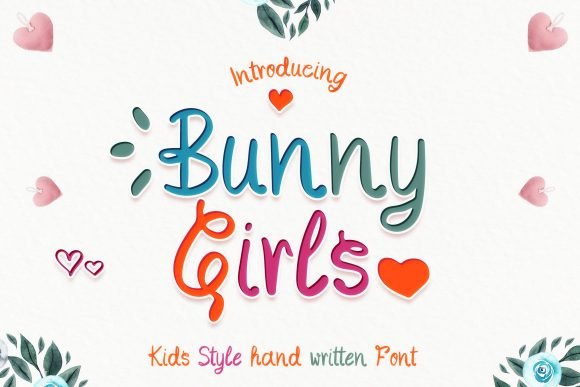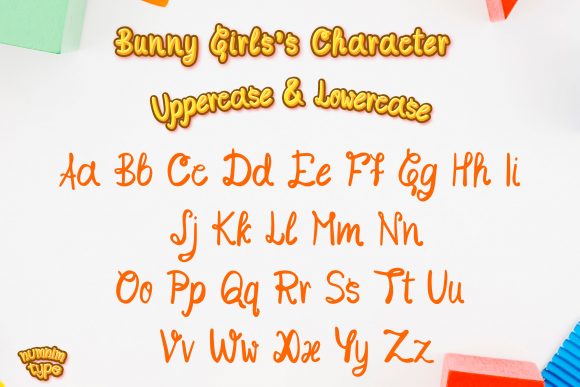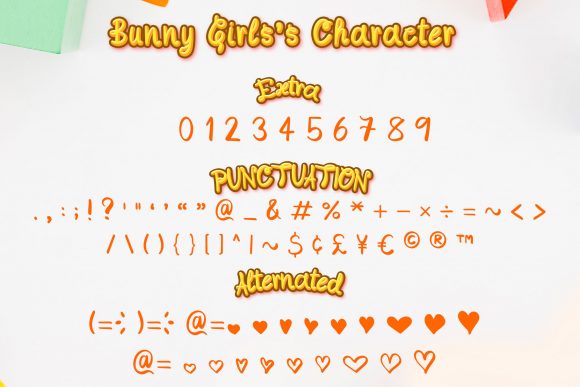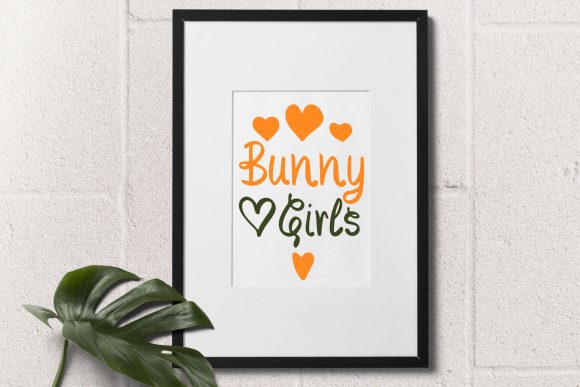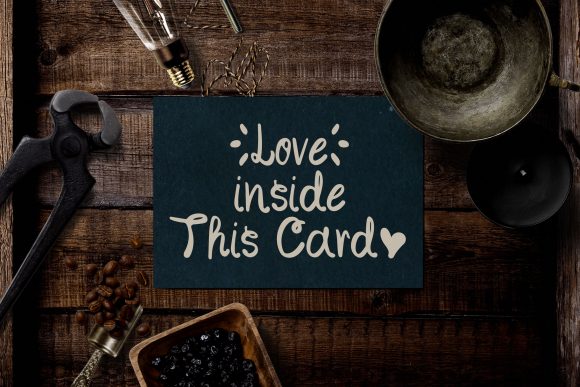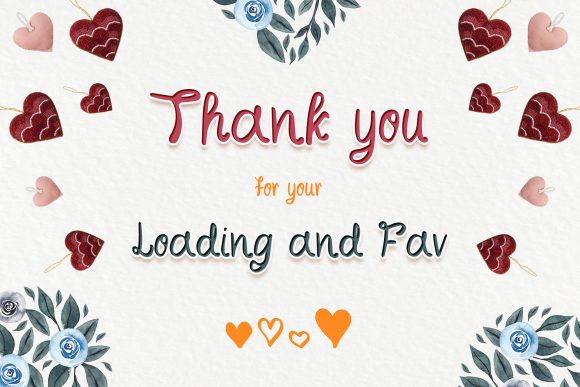
Bring Joy to Your Designs with Bunny Girls Font
Who hasn’t had a moment of pure creative bliss, surrounded by colorful pens, scribbled notes, and a dash of imagination? It’s those carefree moments that spark our passion for design, and for many, it’s a love affair that never fades. If you’re a designer who cherishes the charm of hand-drawn elements and playful typography, you’re in for a treat. Meet the Bunny Girls Font, a delightful handwritten font that’s sure to capture your heart.
This sweet and flexible font is designed to bring a smile to your face, featuring adorable doodle elements that are perfect for creating designs for schools or children-related projects. Whether you’re crafting a birthday invitation or a charming poster, the Bunny Girls Font is sure to add a touch of whimsy and personality to your work.
Bunny Girls Font Key Features
- Unique Characteristics: Bunny Girls Font features a whimsical, cartoon-style design with cute bunny characters and playful typography, making it ideal for children’s books, nursery decorations, and Easter-themed designs.
- Font Style: Comes in Regular, Bold, and Italic styles, with optional ligatures and swashes for added creativity
Bunny Girls Font Review
The Bunny Girls Font is a playful and whimsical font that can bring a touch of fun to any design project. I appreciate the attention to detail in the font’s design, particularly in the way the letterforms are connected to create a sense of fluidity ✨.
Here are some specific things that work well about this font:
- Its cursive feel is great for creating a sense of movement and flow.
- The font is highly customizable, allowing designers to adjust the spacing, size, and color to suit their needs.
- The font is available in a range of weights, from light to bold, making it suitable for a variety of design applications.
However, there are some limitations to consider ⚠️:
- The font may not be suitable for formal or professional projects, as its playful nature may come across as unprofessional.
- The font may not be as legible at small font sizes, which could impact readability.
Overall, the Bunny Girls Font is a fun and creative option for designers who want to add a touch of whimsy to their projects. While it may have some limitations, its unique design and customization options make it a great choice for the right project.
Tips for Getting the Most Out of Bunny Girls Font
For optimal results, use the Bunny Girls Font for text-based designs, such as headings, titles, and captions.
Pair the font with other playful and whimsical fonts to create a unique and eye-catching design.
Common Use Cases for Bunny Girls Font
The Bunny Girls Font is ideal for:
- Children’s book covers and illustrations.
- Party invitations and decorations.